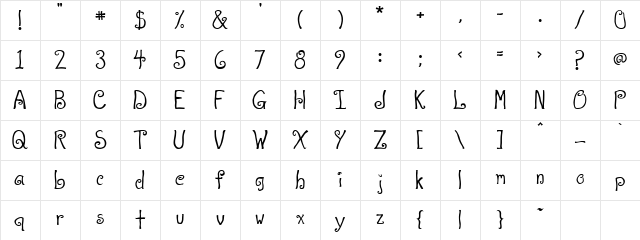
A T & Love Regular Free Font
A T  & Love Regular
Version: Lauren Ashpole's A T & Love
Design Context for A T & Love
A T & Love is a composed and adaptable typeface that performs quietly and consistently across a wide range of design contexts.